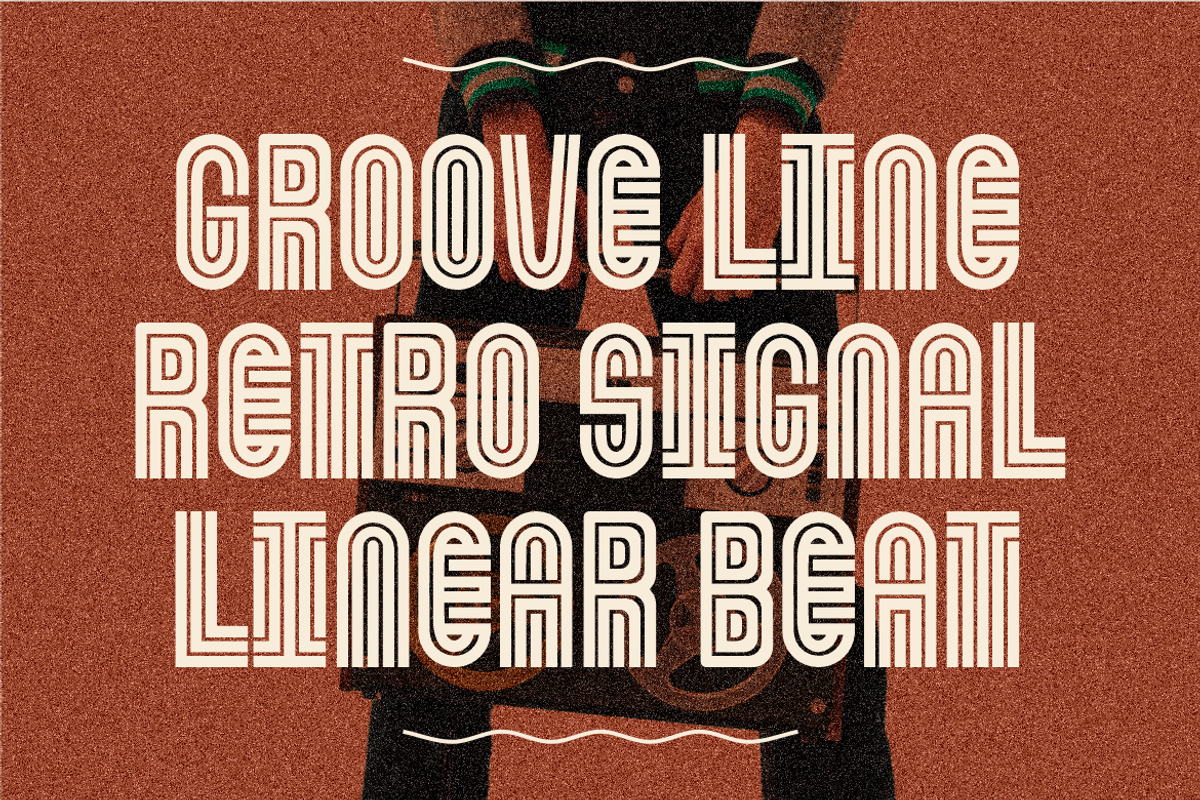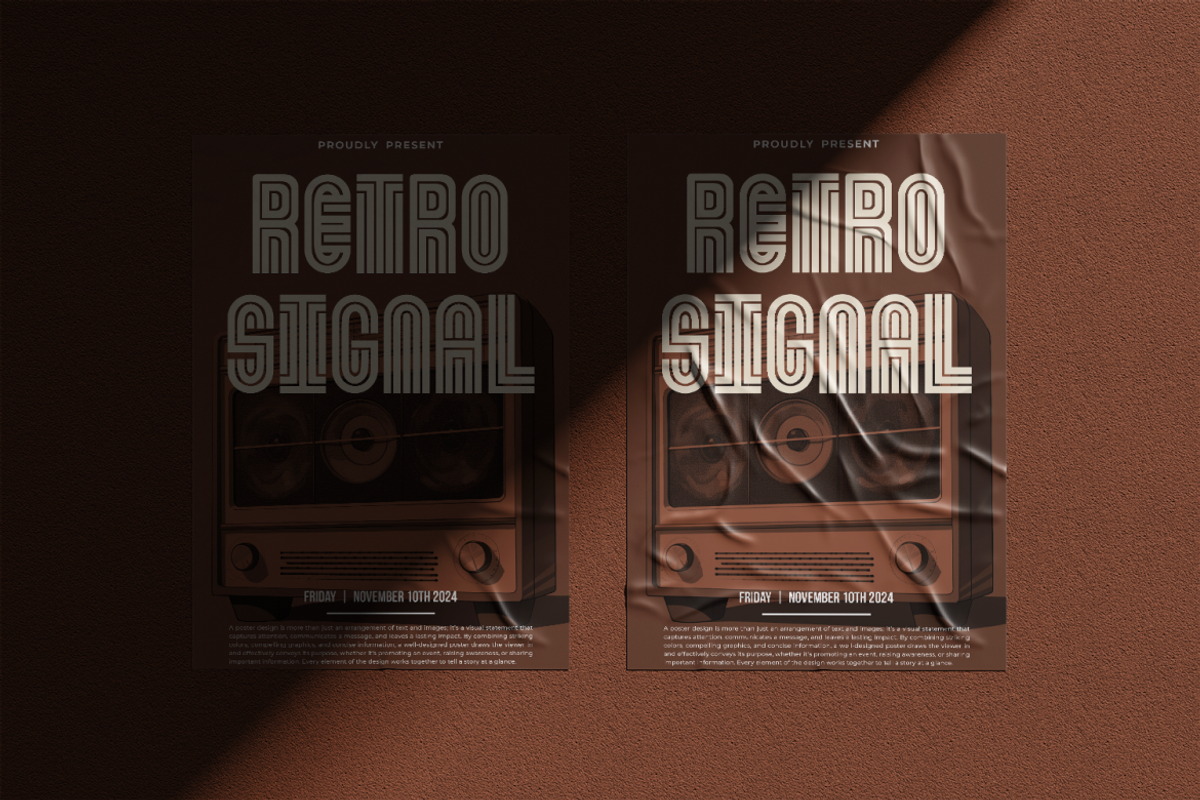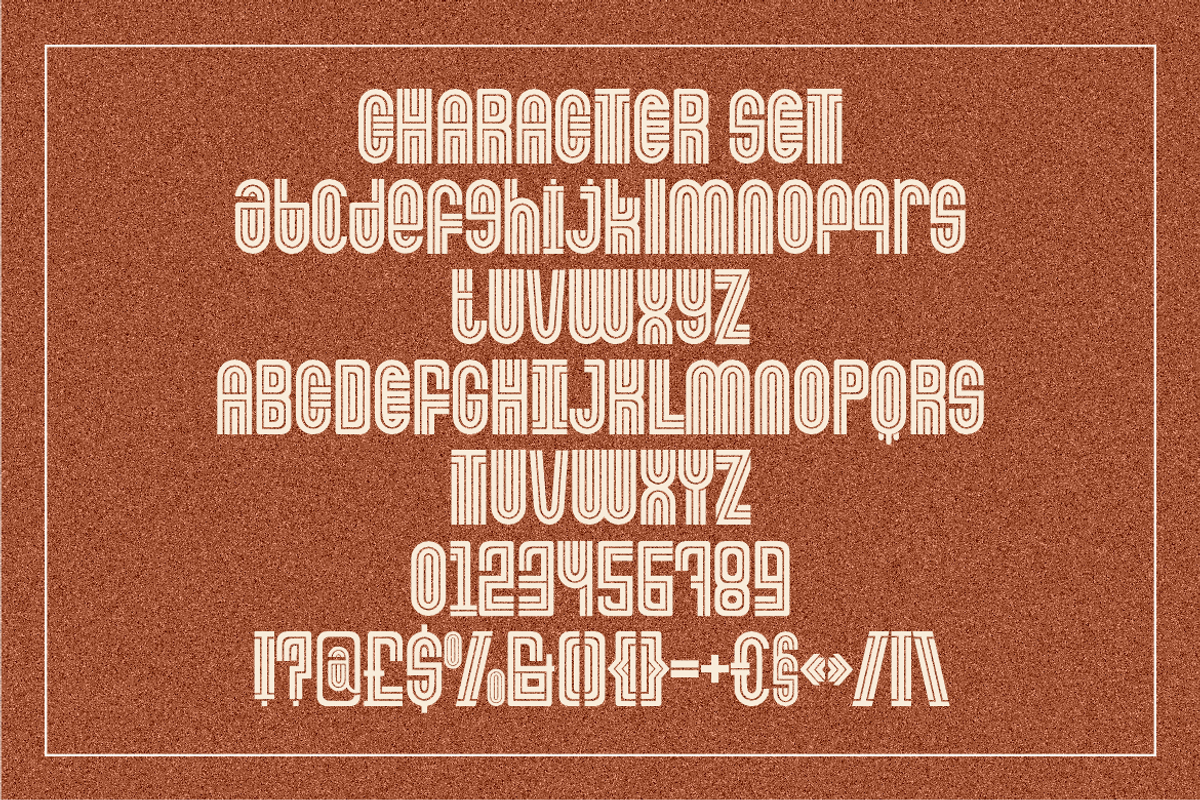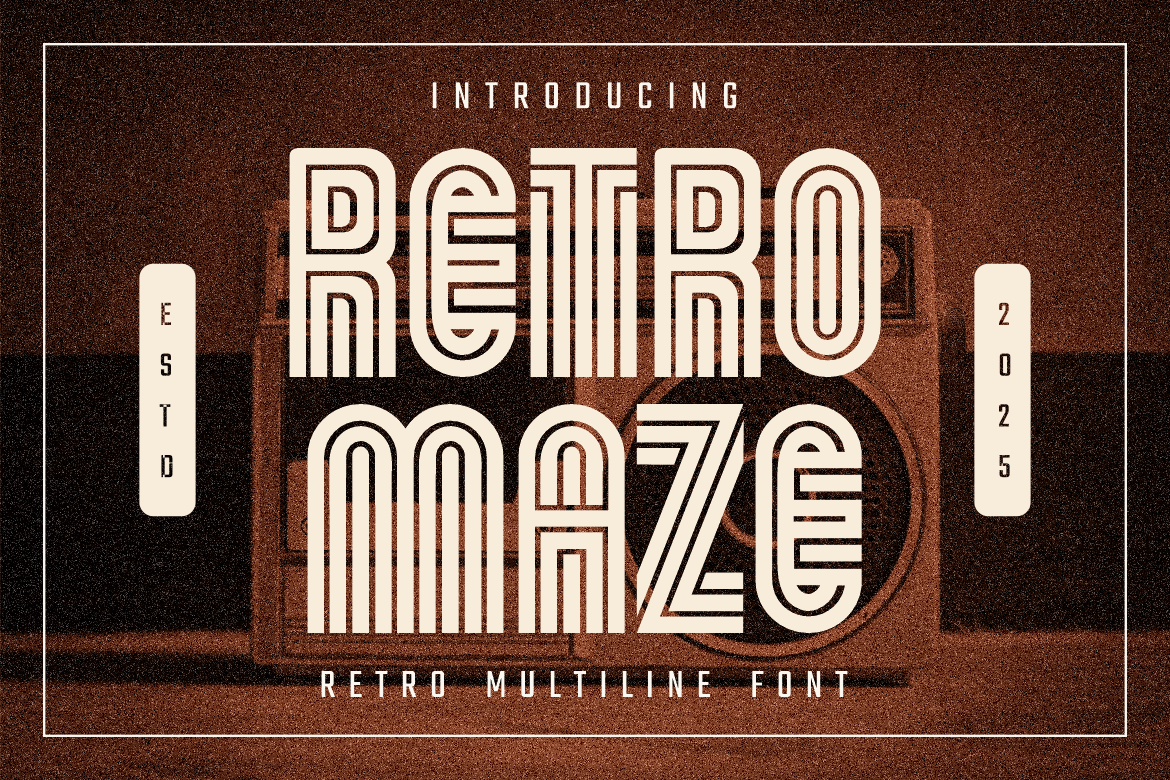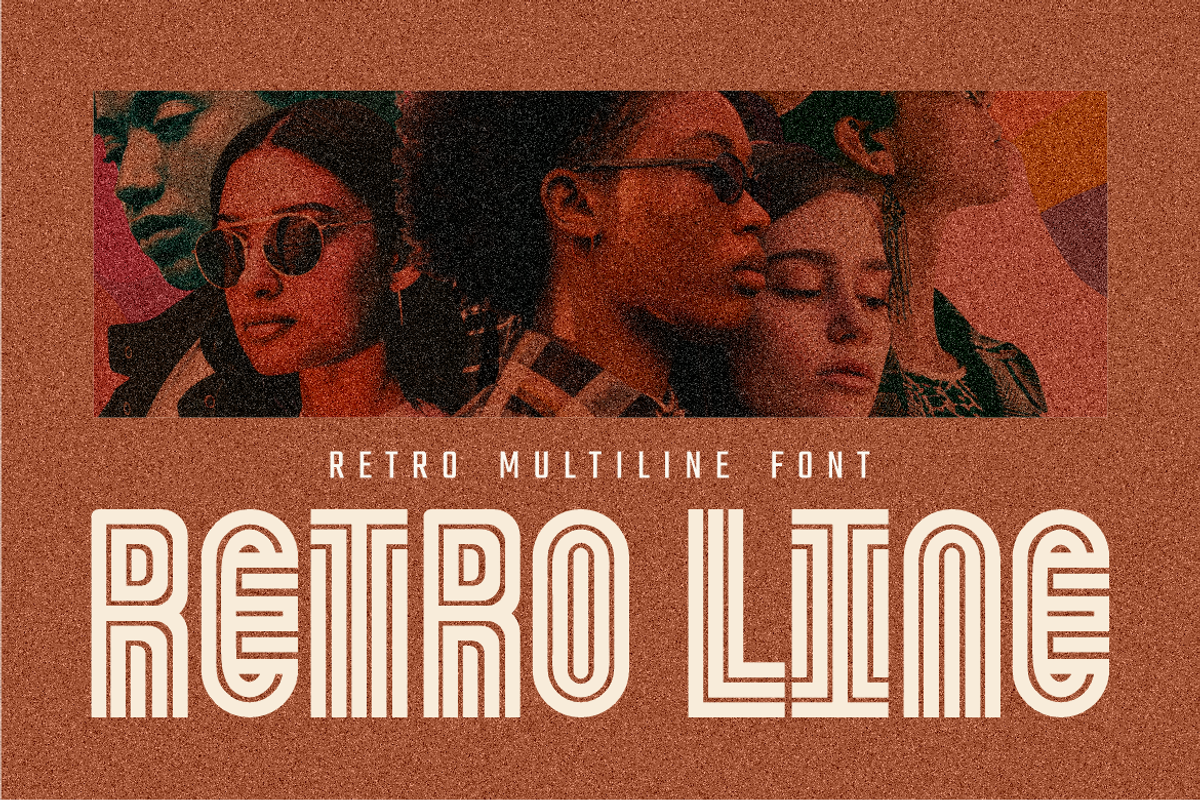
Retromaze Retro Multiline Font
Retromaze Retro Multiline Font is a striking typeface designed to capture the timeless essence of vintage typography. Each character is built with clean parallel lines, giving a maze-like geometric structure that feels bold yet stylish. The design embraces the retro aesthetic of the 70s and 80s while keeping a modern readability that makes it ideal for display use. Its tall letterforms and layered linework create a rhythm that draws the eye, making it perfect for standout headlines, posters, and branding projects.
This font works beautifully for retro-themed designs, logos, packaging, music covers, or magazine titles that demand a nostalgic but fresh look. The multiline construction allows creative layering with colors, textures, or gradients to enhance the vintage appeal. Retromaze blends classic inspiration with versatile modern design, ensuring your projects stand out with personality and style. Use it across print or digital layouts to add a bold statement that never goes unnoticed.